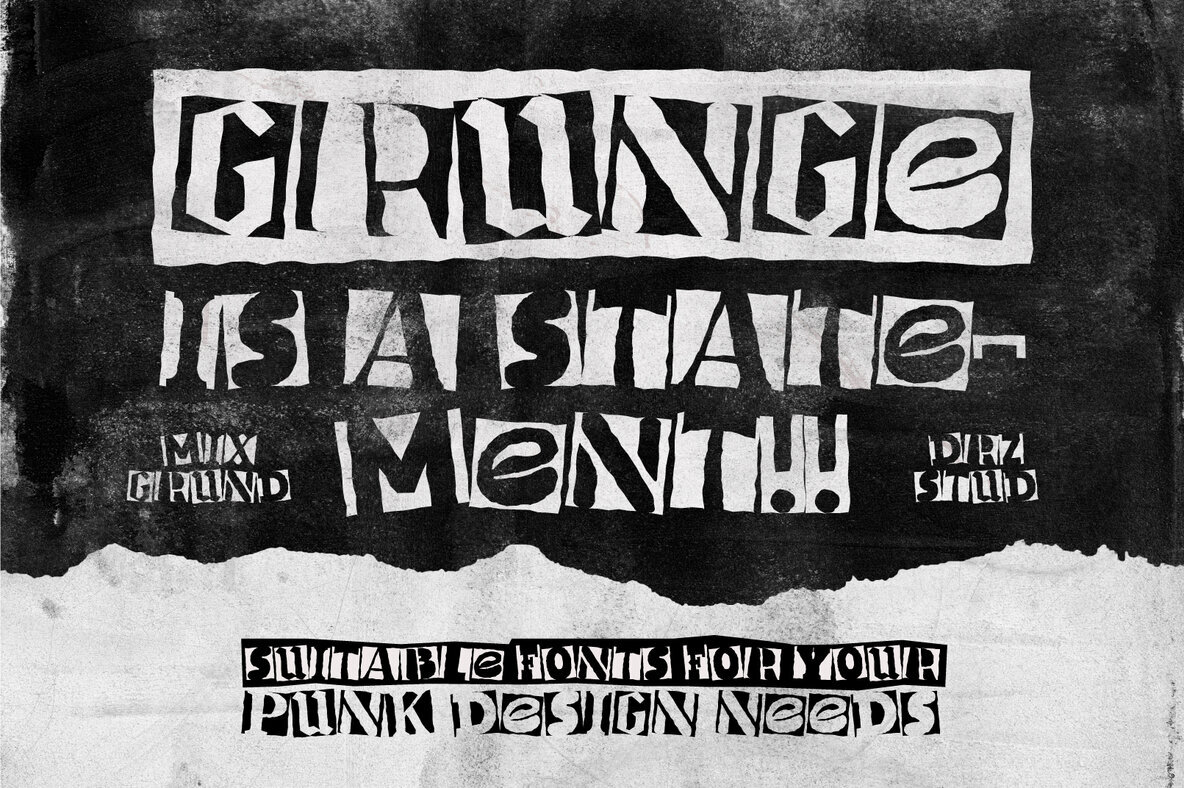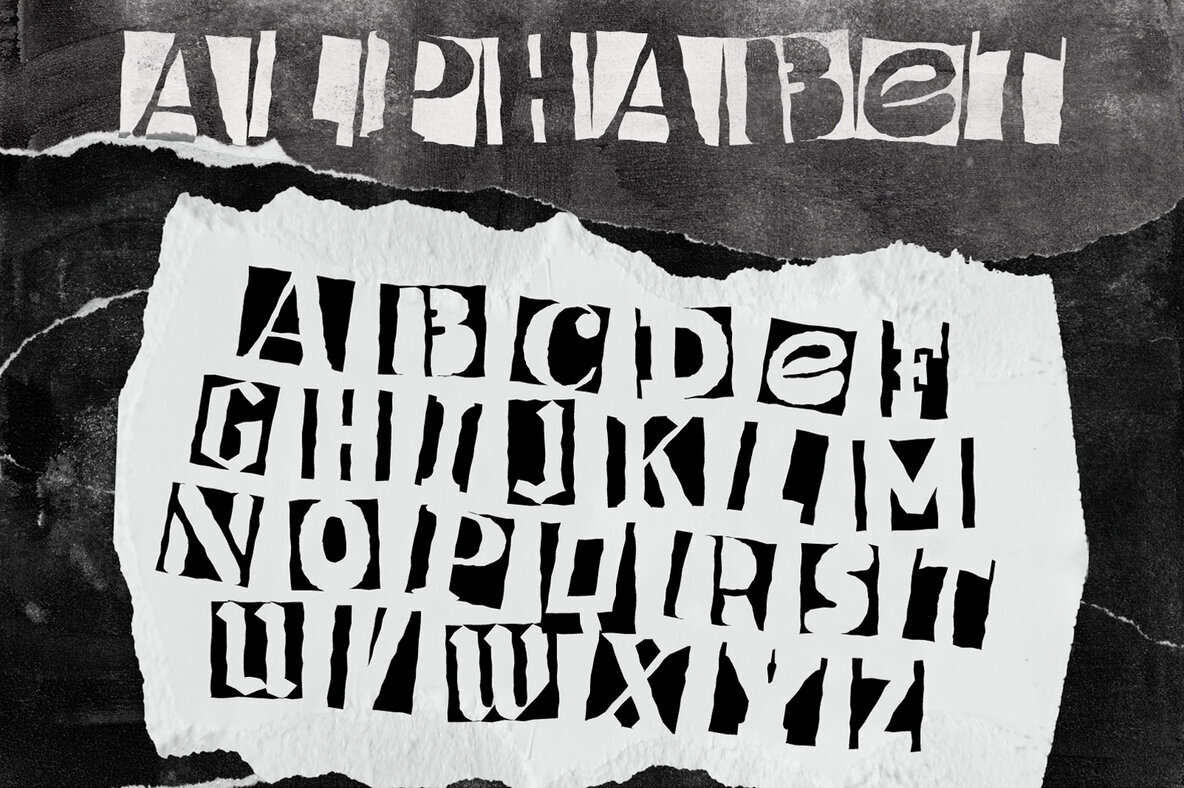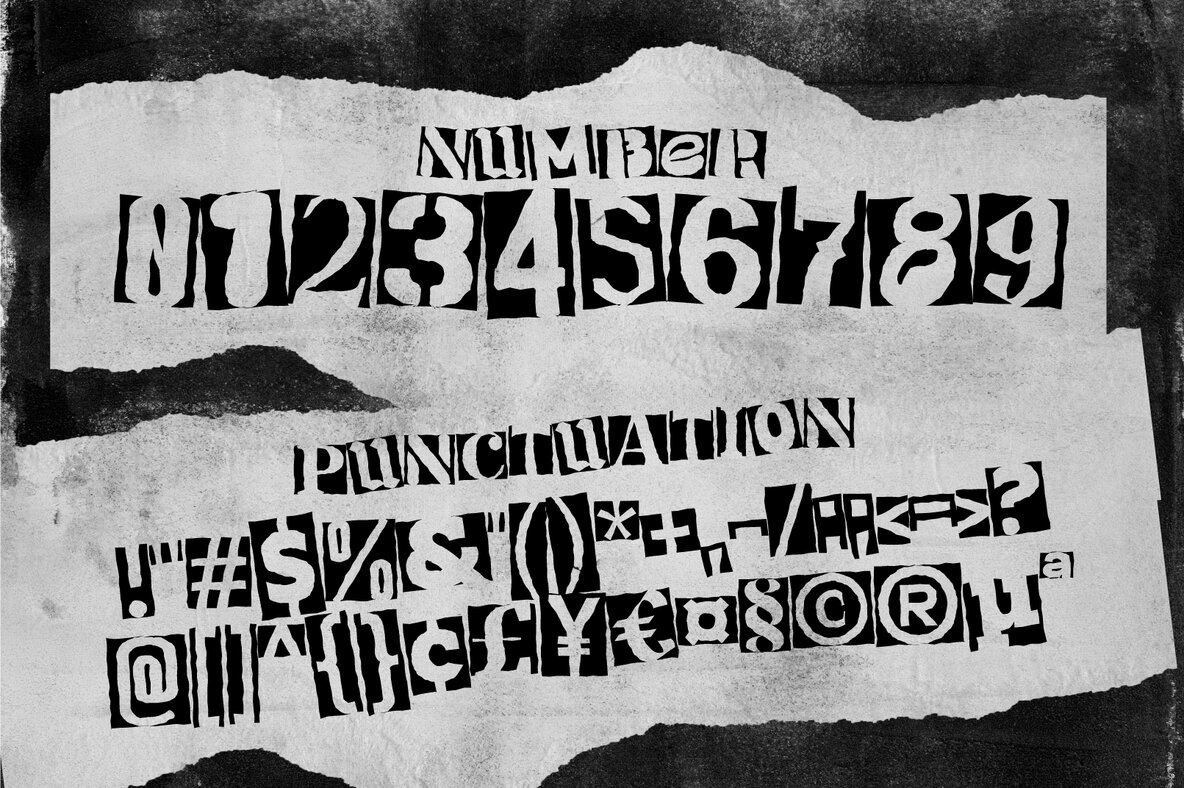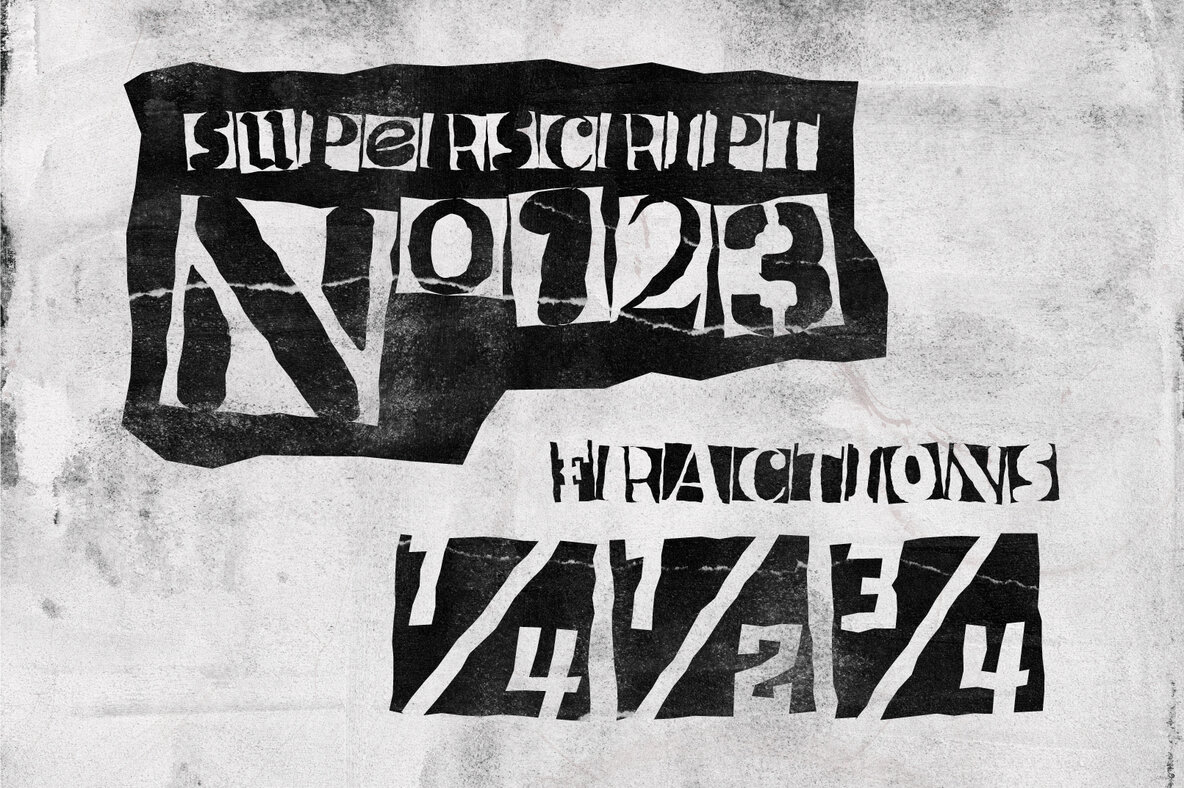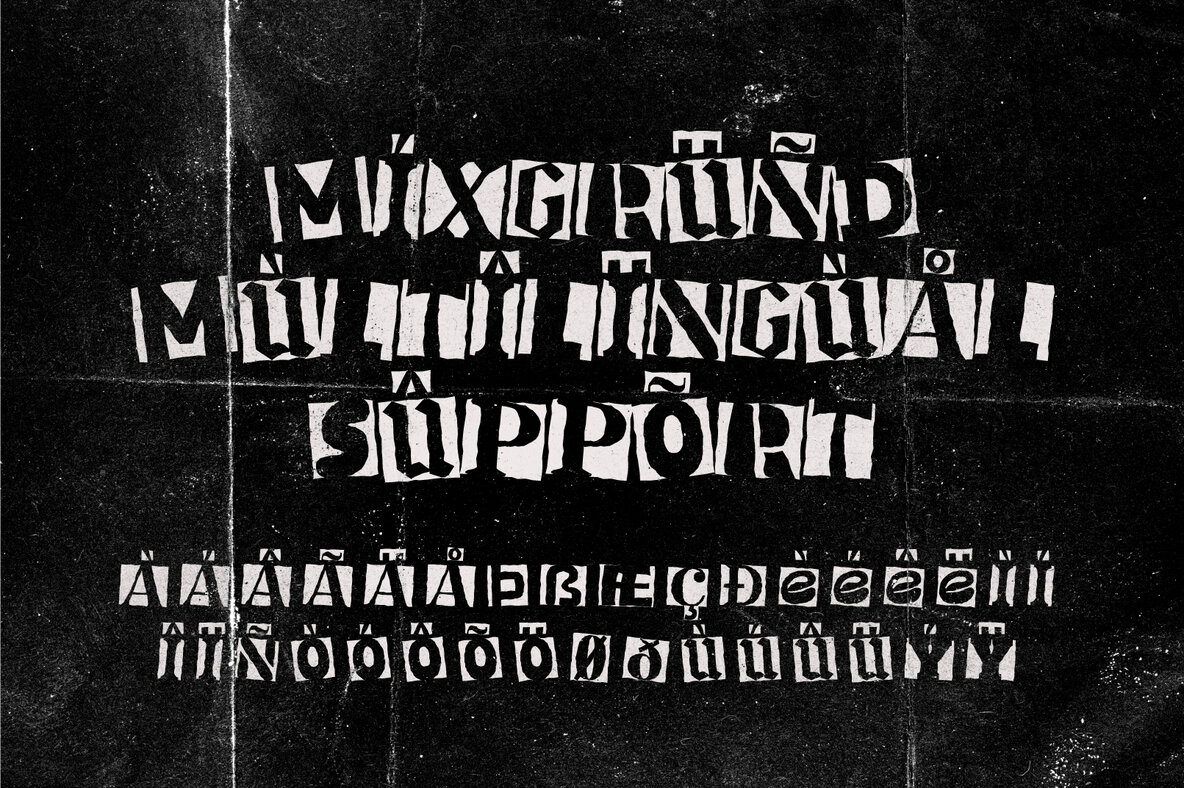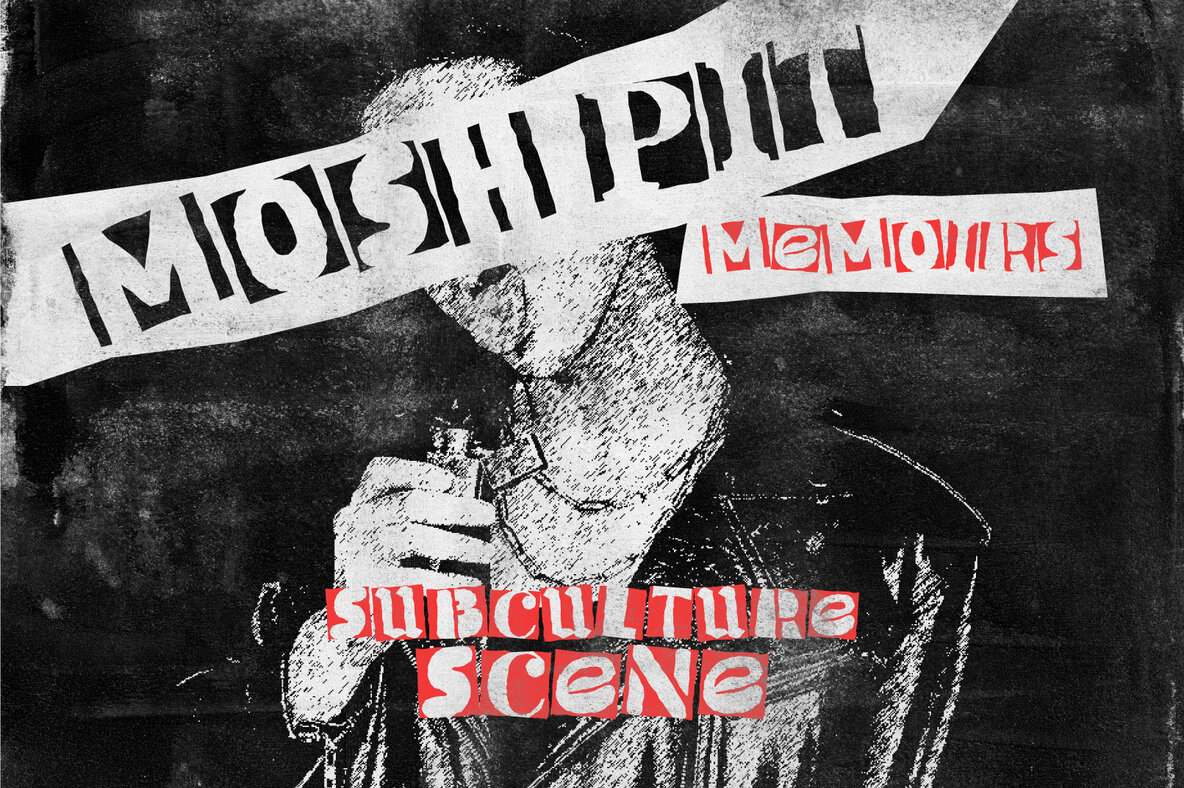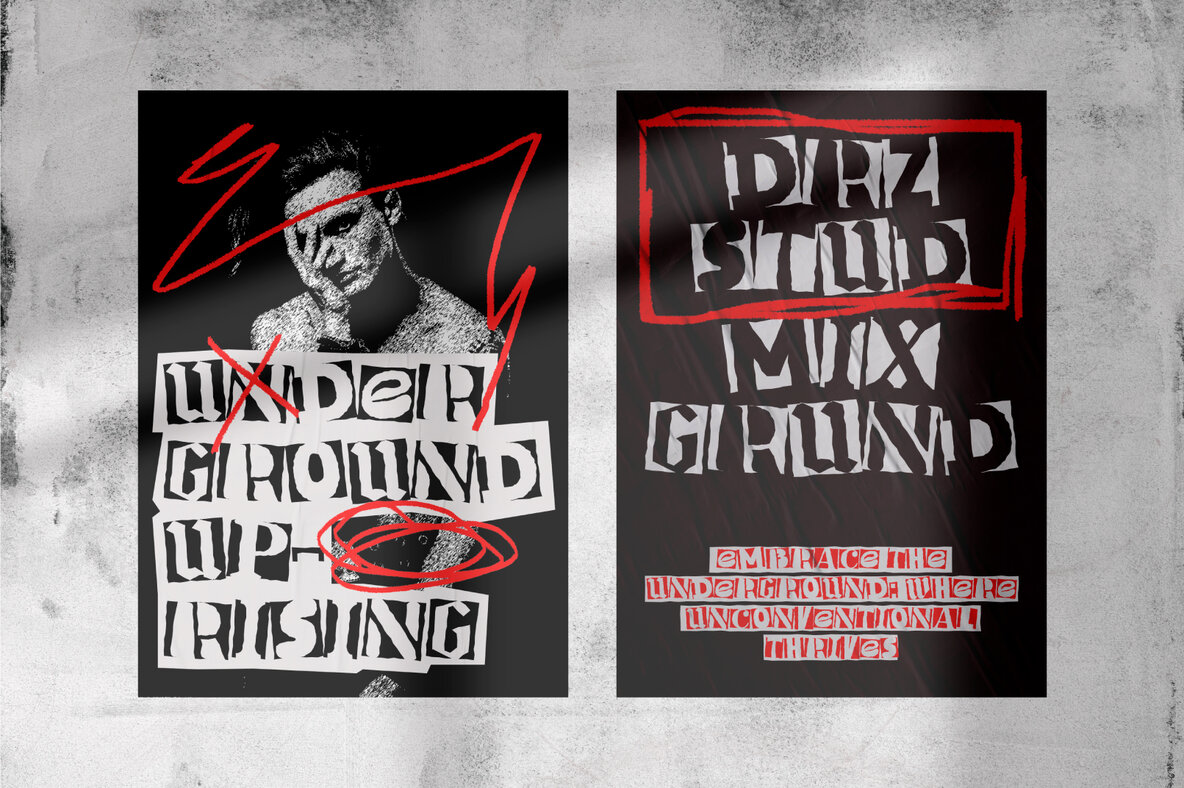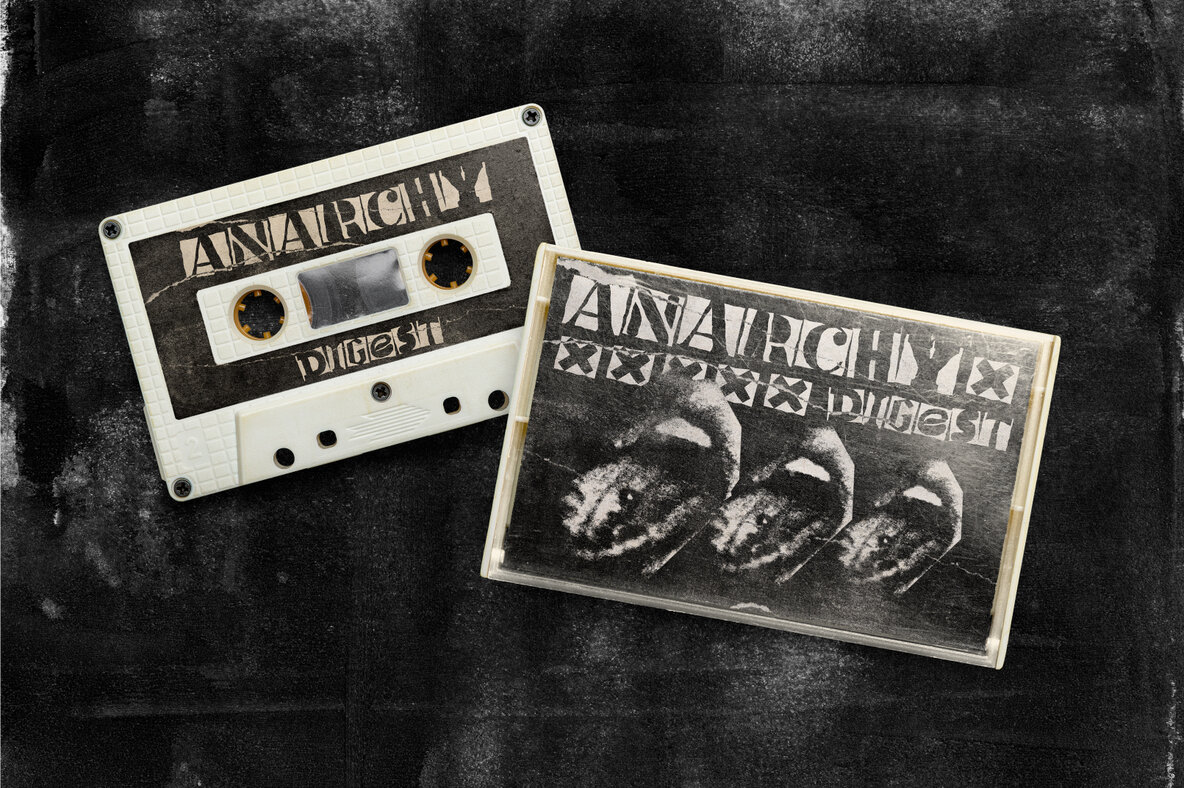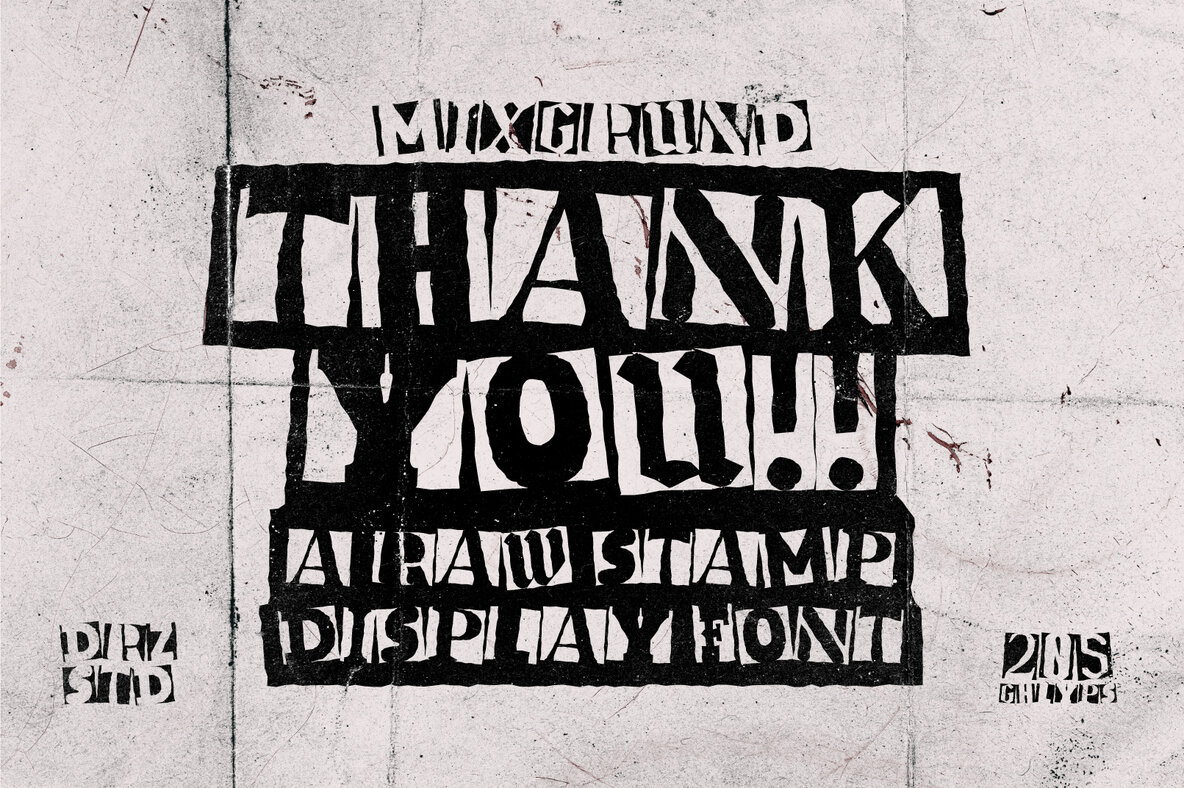
Mixgrund Font
Mixgrund Regular
Mixgrund – Raw Stamp, Grunge Pointillism Font, is a unique and captivating typeface that combines the raw energy of stamped textures with the intricate detail of pointillism art. Designed to capture the spirit of grunge aesthetics while incorporating a modern twist, Mixgrund stands out for its ability to add depth, character, and a touch of rebelliousness to any design project. Mixgrund features: